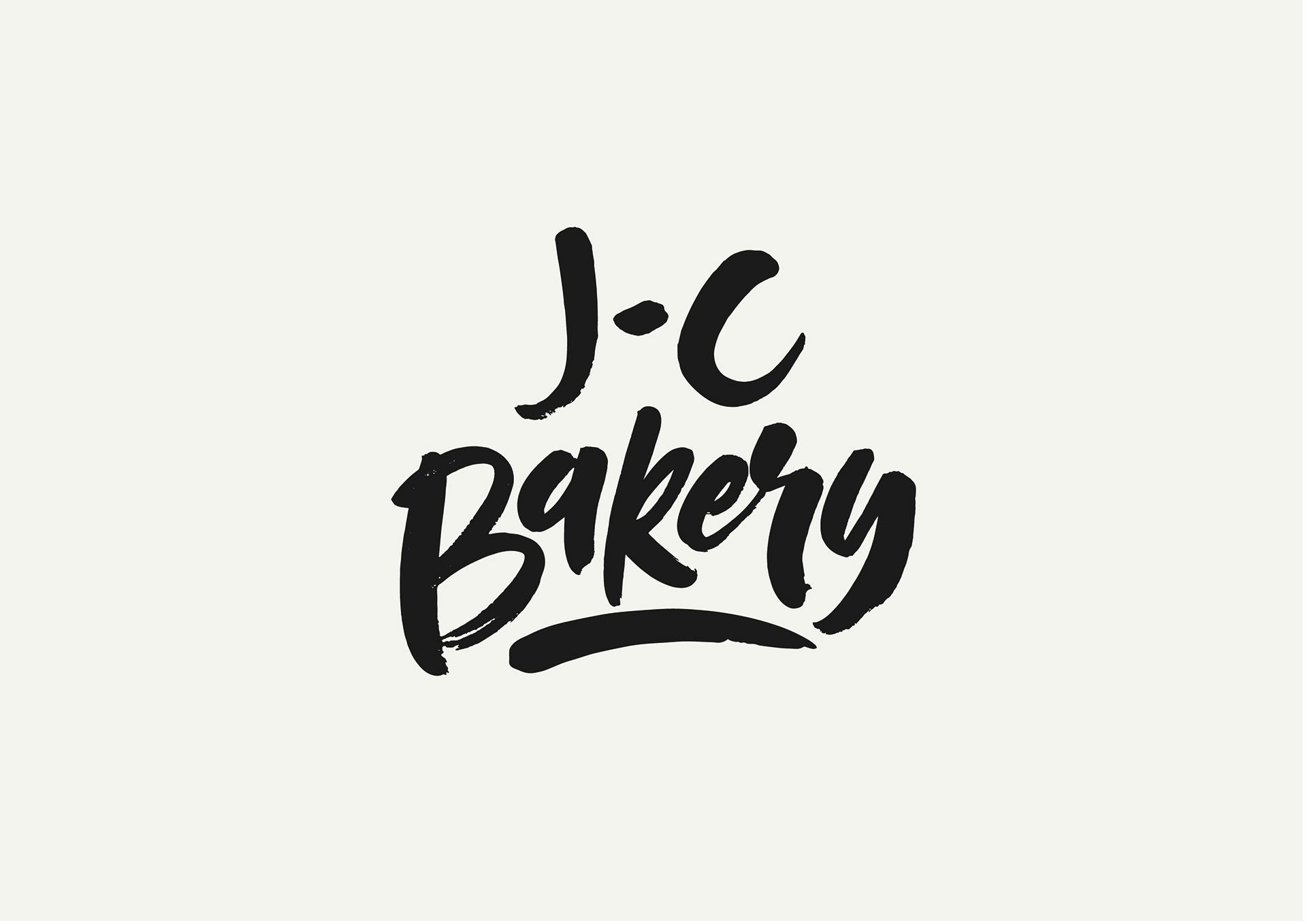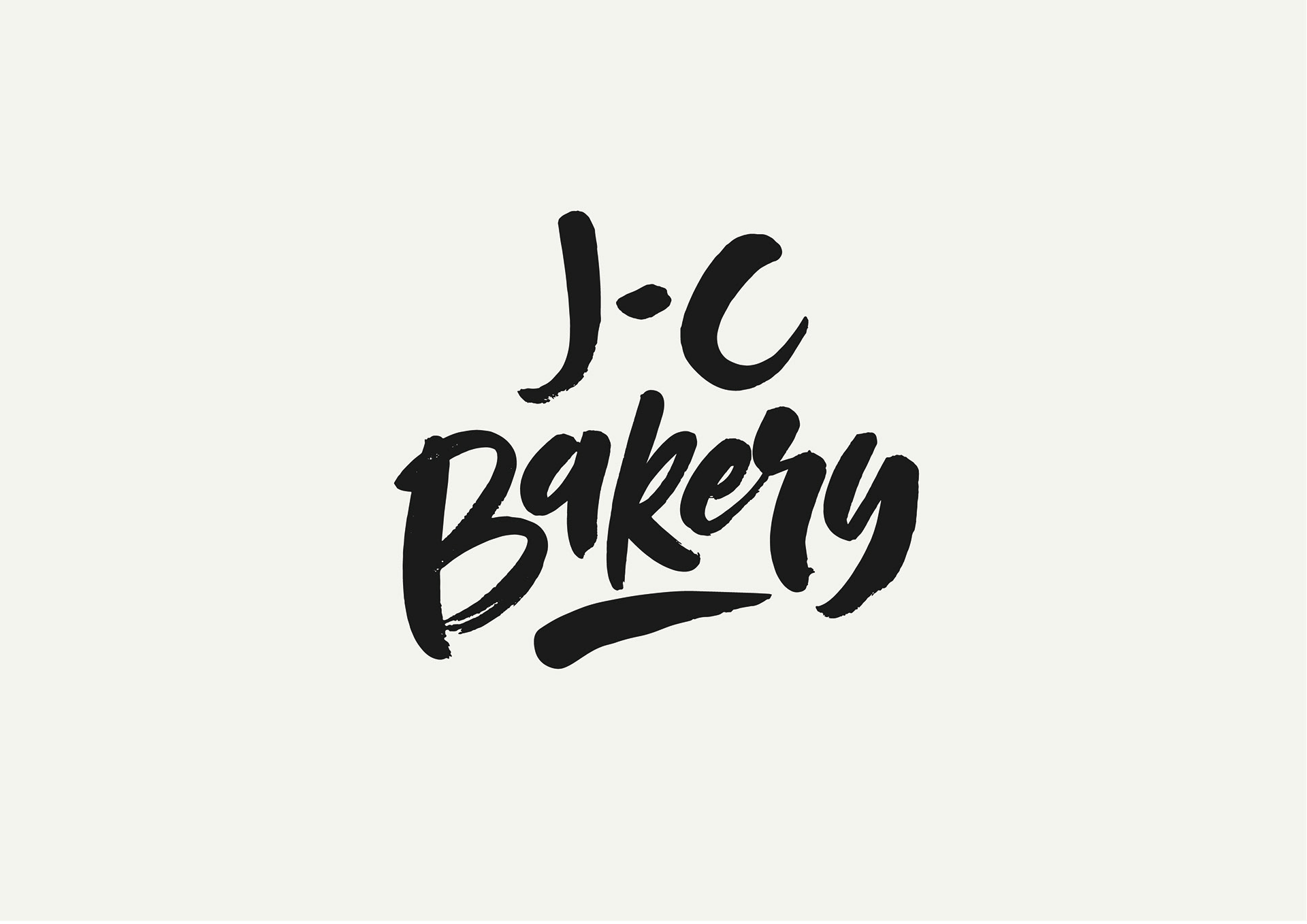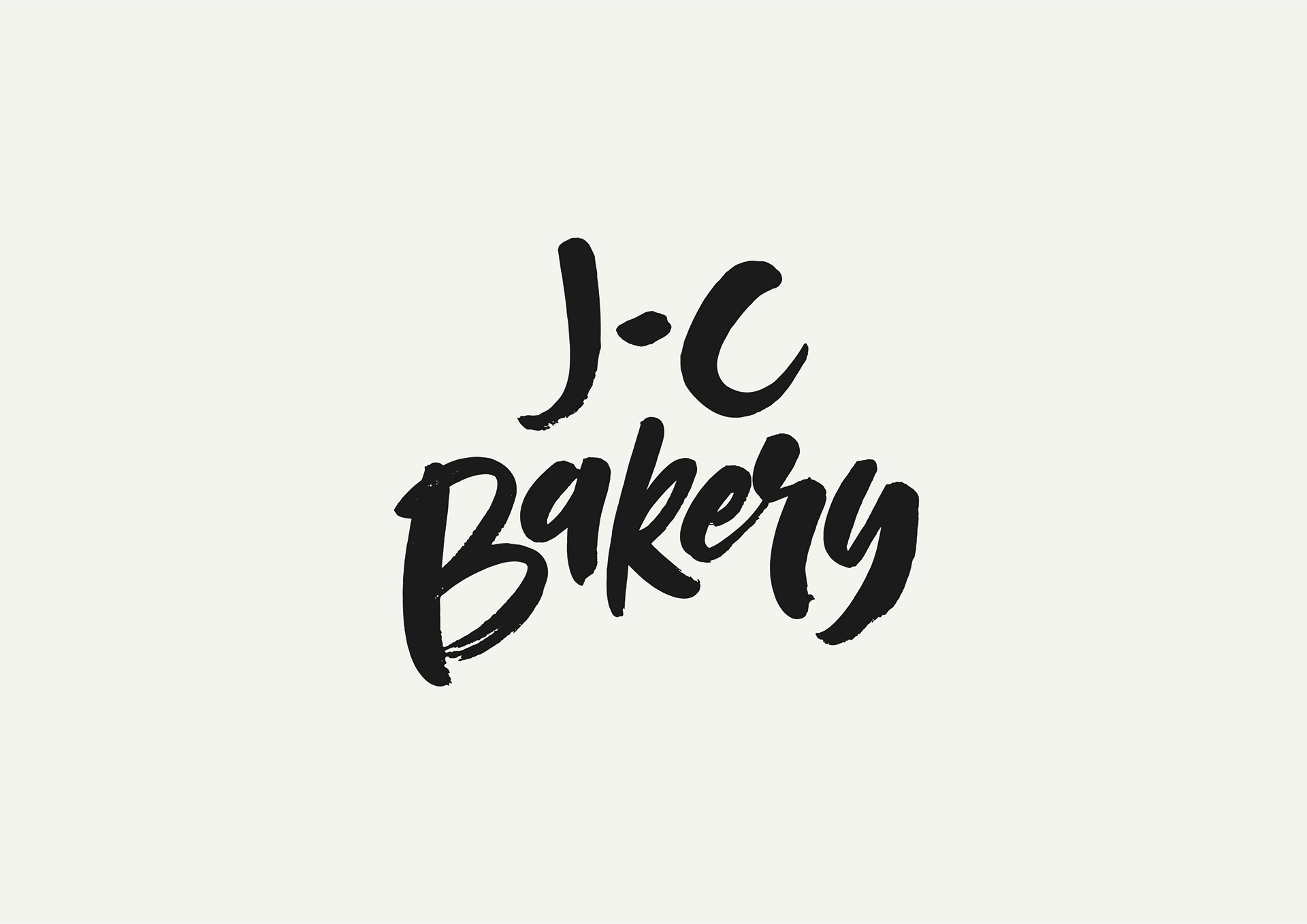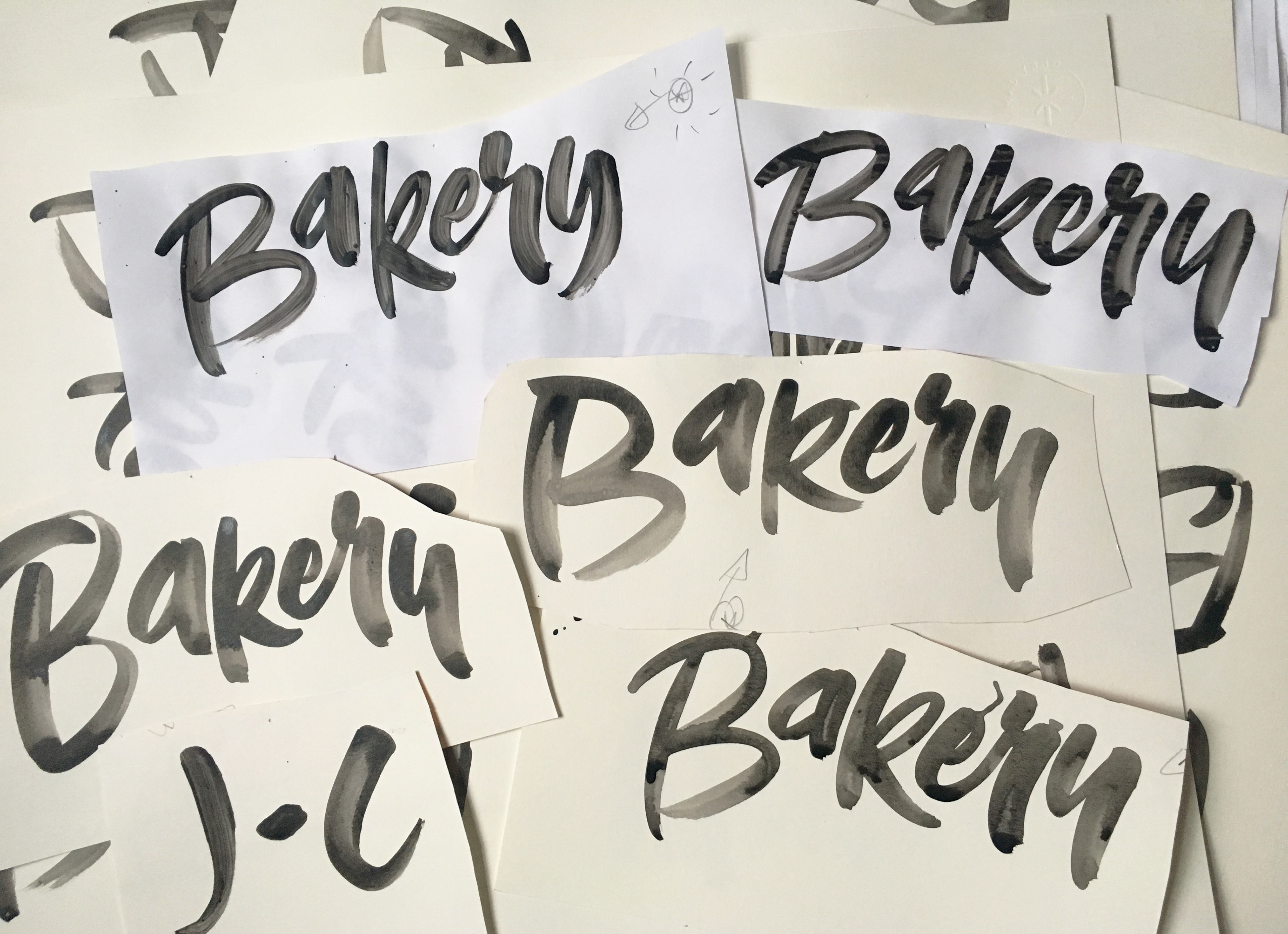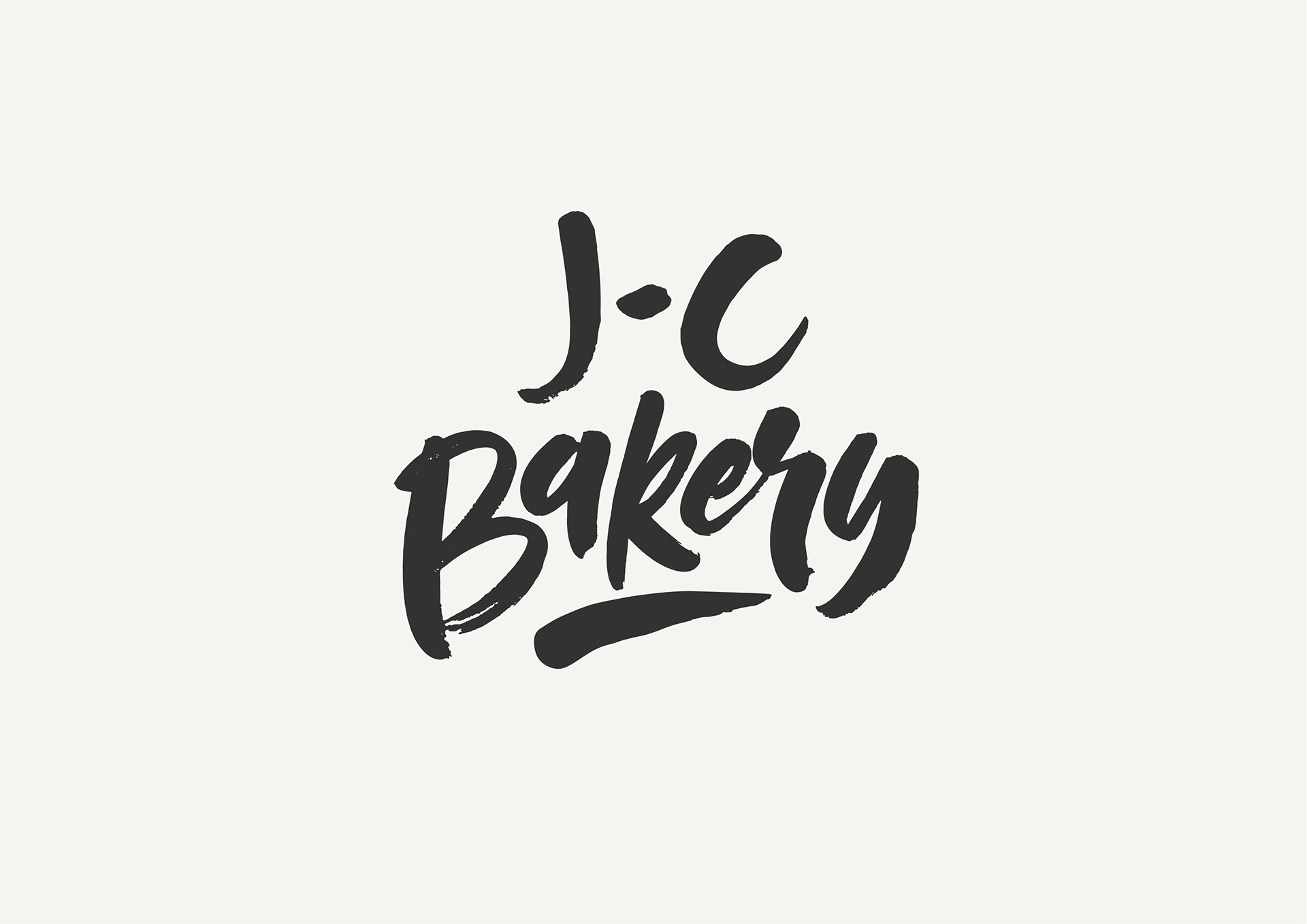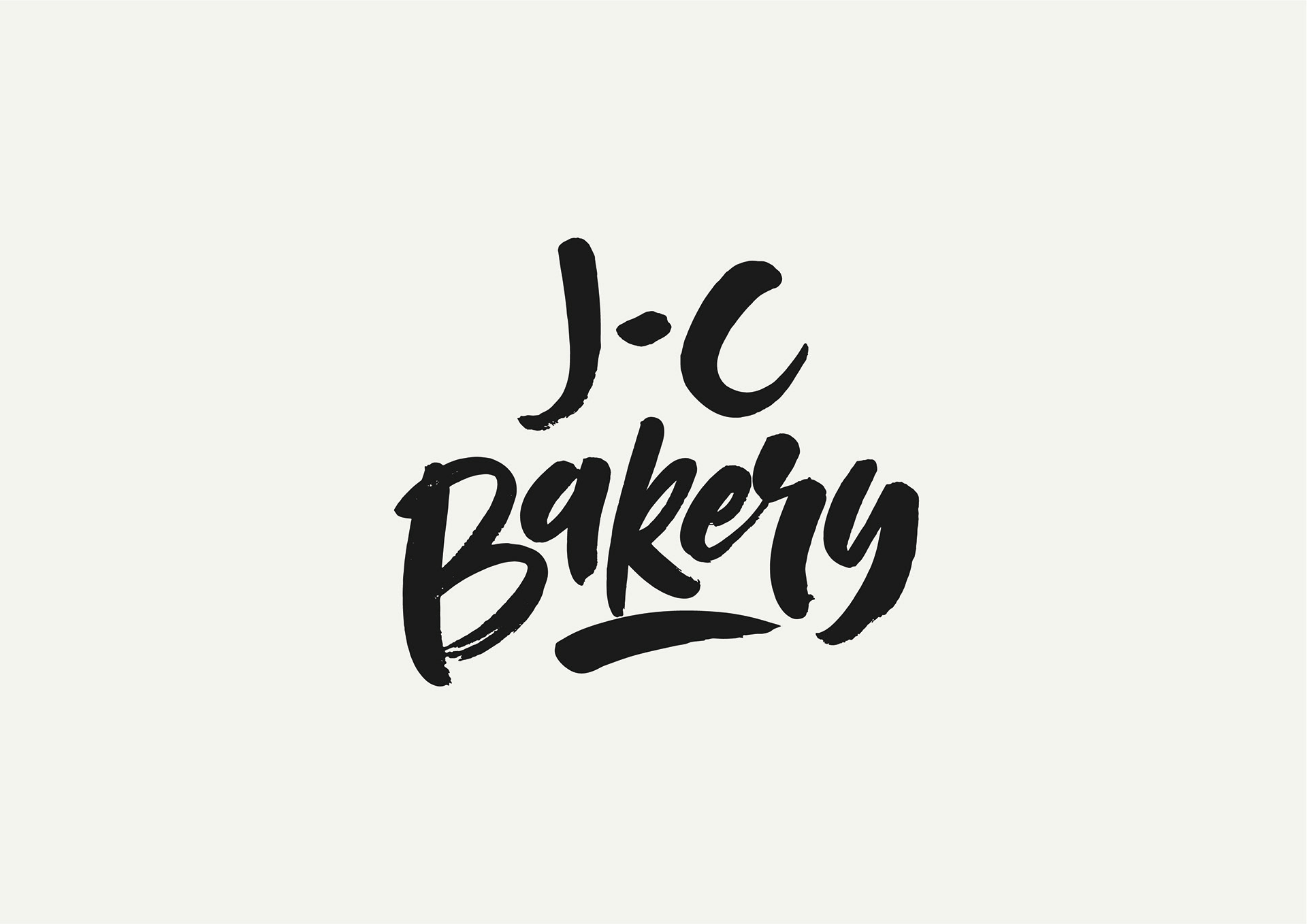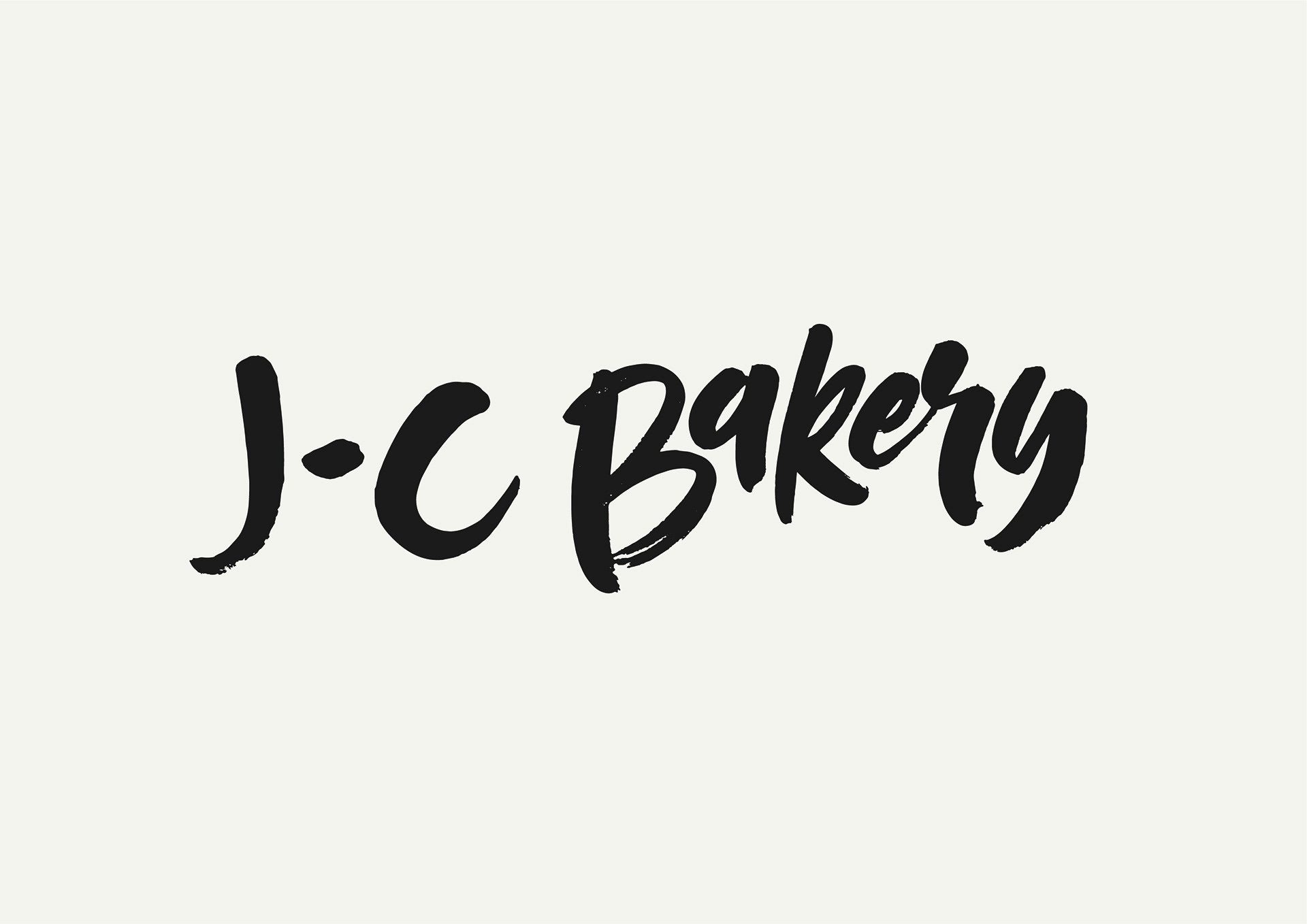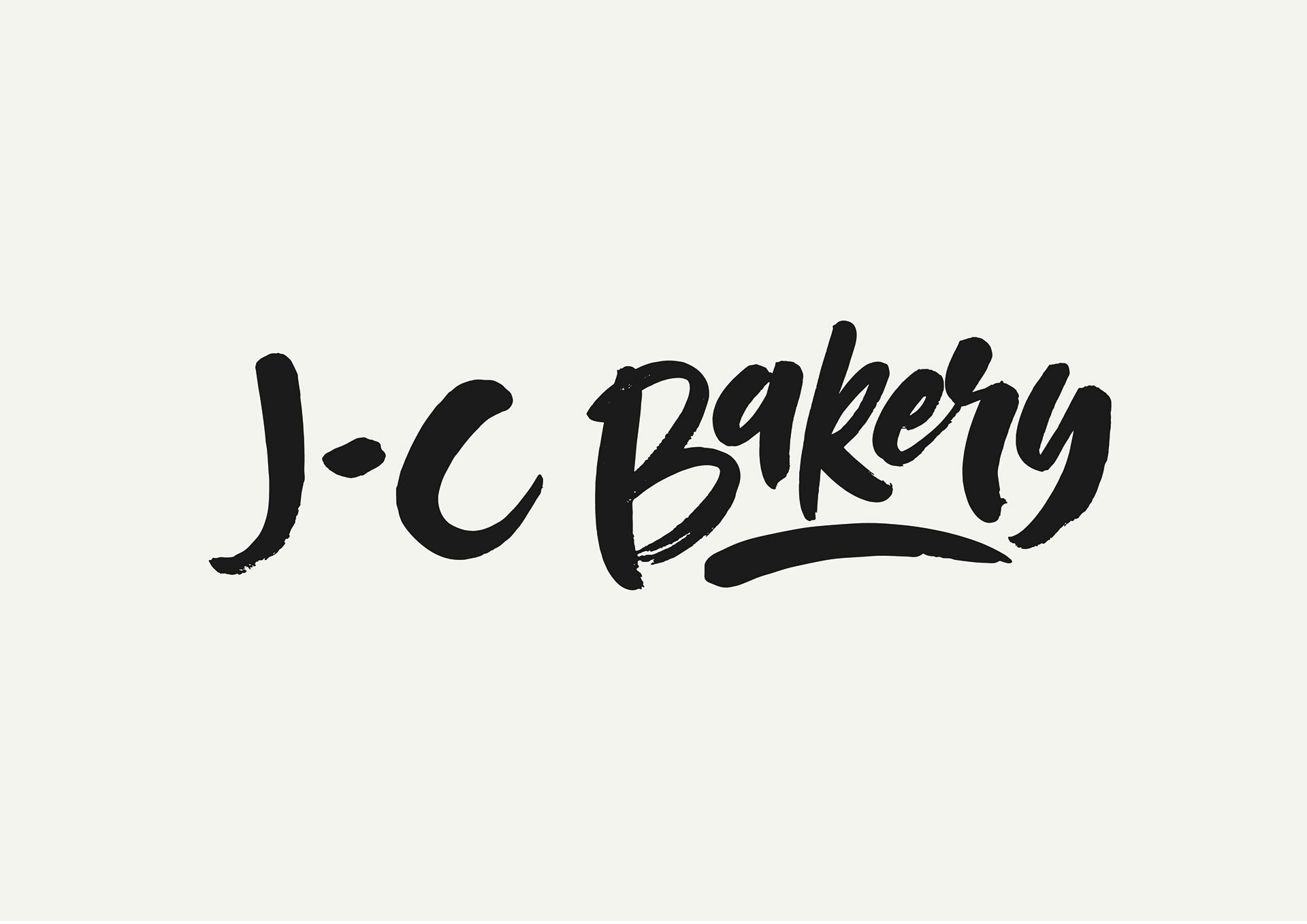
J.C Bakery commissioned me to do some branding for their new venture, they specifically requested some custom hand-lettering and favoured a loose, inky style, but otherwise left it to me to interpret their brand of specialist occasion cakes. I kept the looseness in the strokes but wanted them to look almost like smears of coulis and cake batter. It's not a perfectly handcrafted font, it's bespoke and handmade, just like their cakes. Below are some of the iterations done with ink and brush before composing them into various options and eventually crafting the final logo. As a new business on a low budget, they needed a brand mark that they could replicate as a stamp to quickly and cheaply brand boxes and bags. Photos of these to follow when the branding has rolled out.